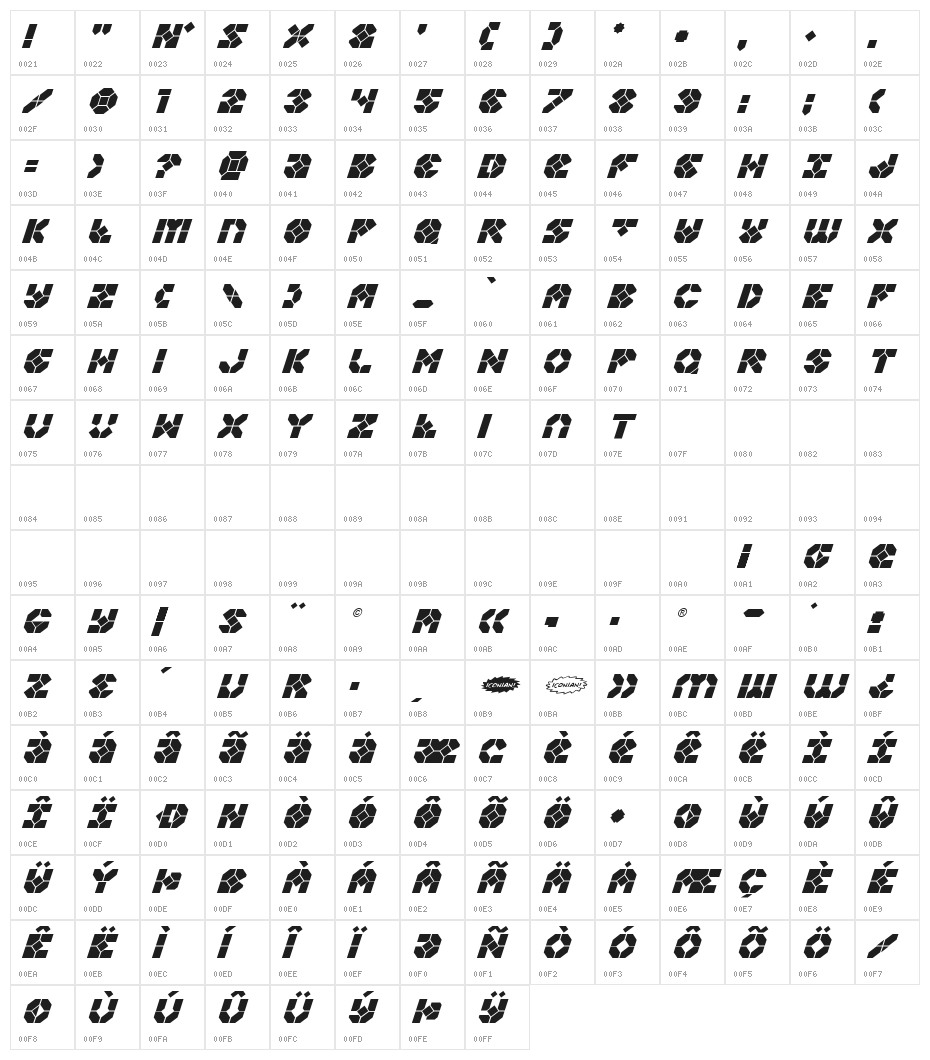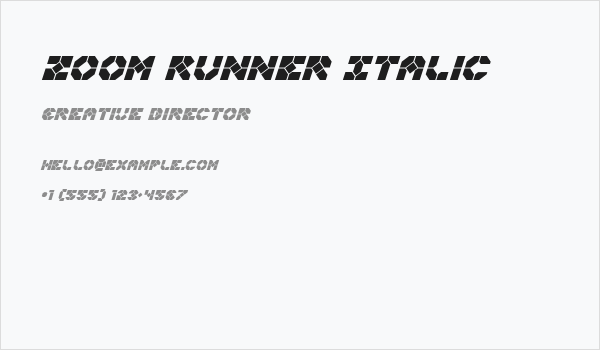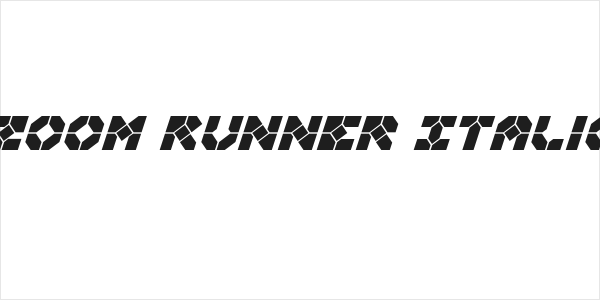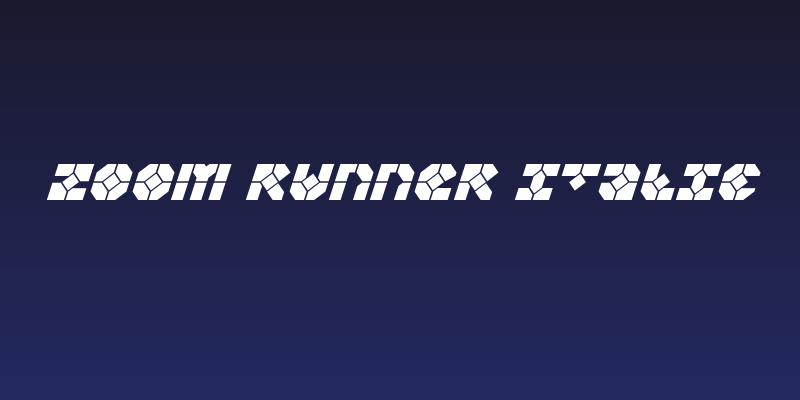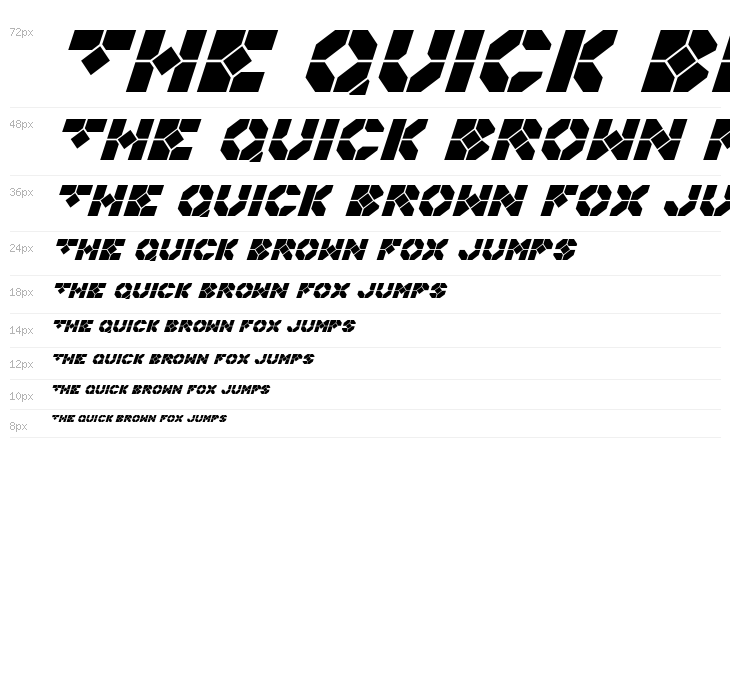
Zoom Runner Italic Font
Zoom Runner Italic Description
This font features a bold, geometric design with a distinct italic slant, creating a dynamic and futuristic appearance. Each character is composed of angular, block-like shapes that give it a unique, fragmented look. The uppercase and lowercase letters are consistent in style, maintaining the same angular and bold characteristics. The numbers and special characters follow the same design principles, ensuring uniformity across all glyphs. The font's strong visual impact makes it suitable for attention-grabbing headlines and modern design projects.
| Proposed Projects | Ideal for sci-fi themed posters, video game graphics, tech branding, and modern advertising campaigns. |